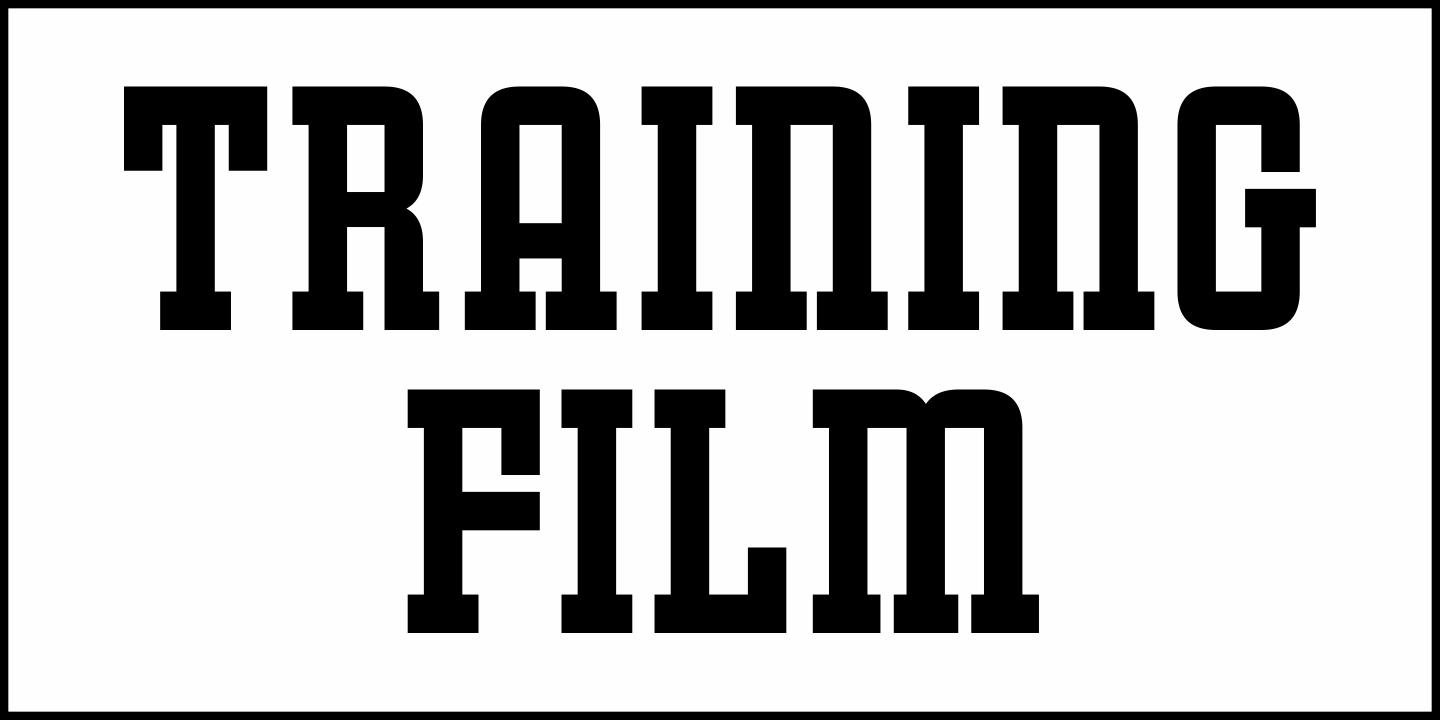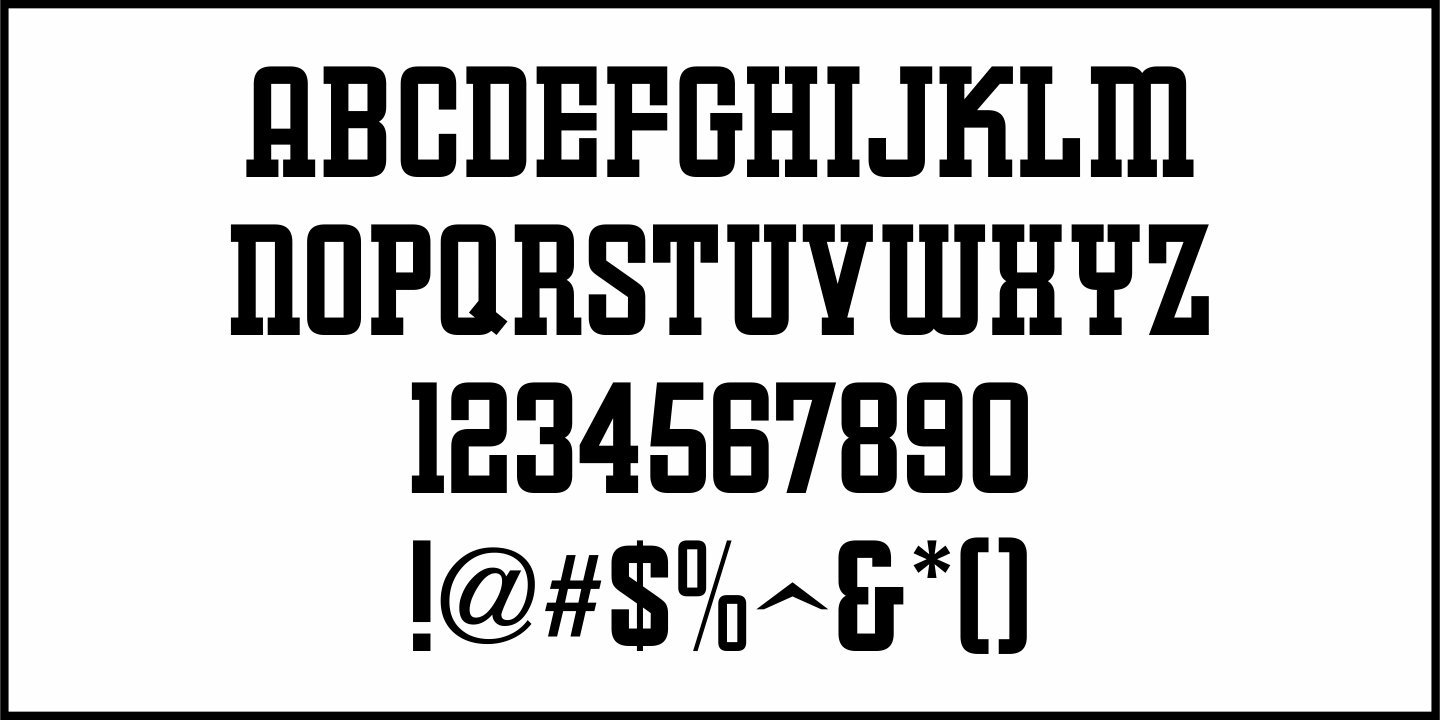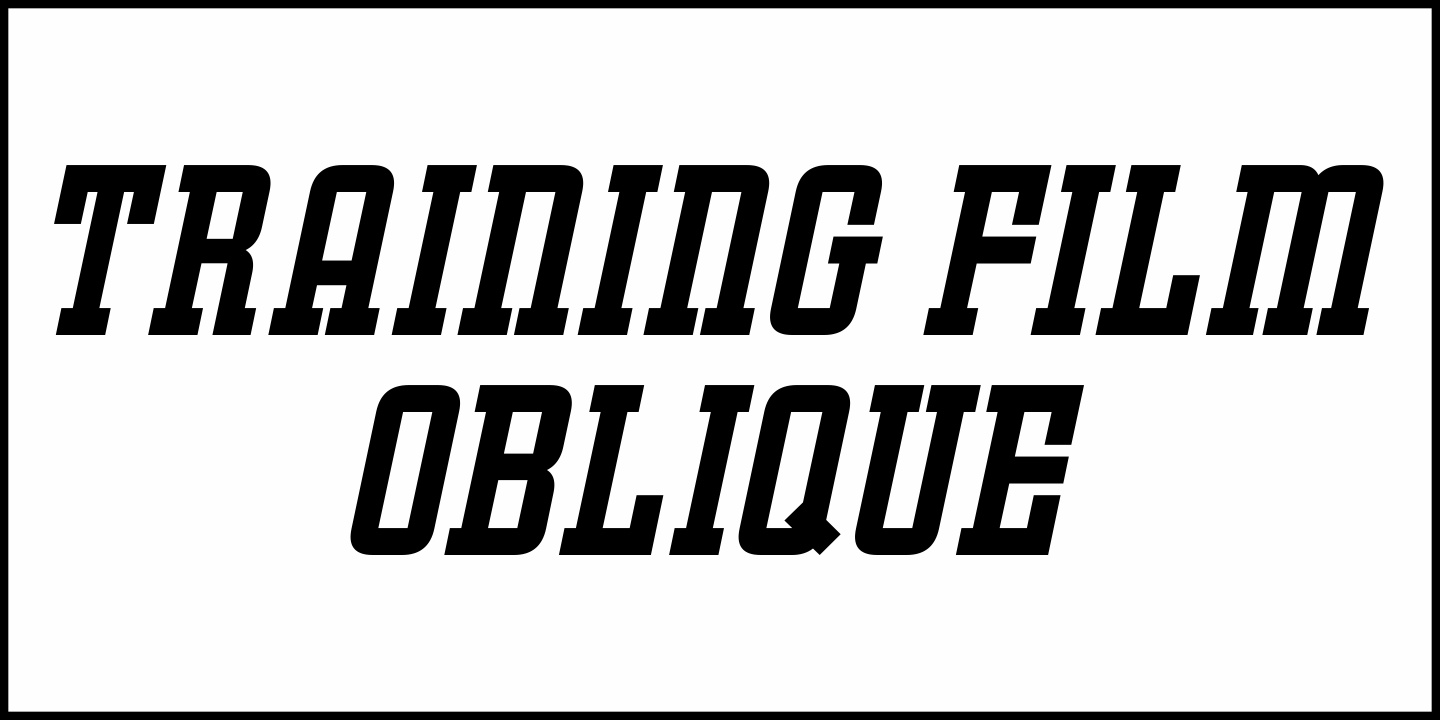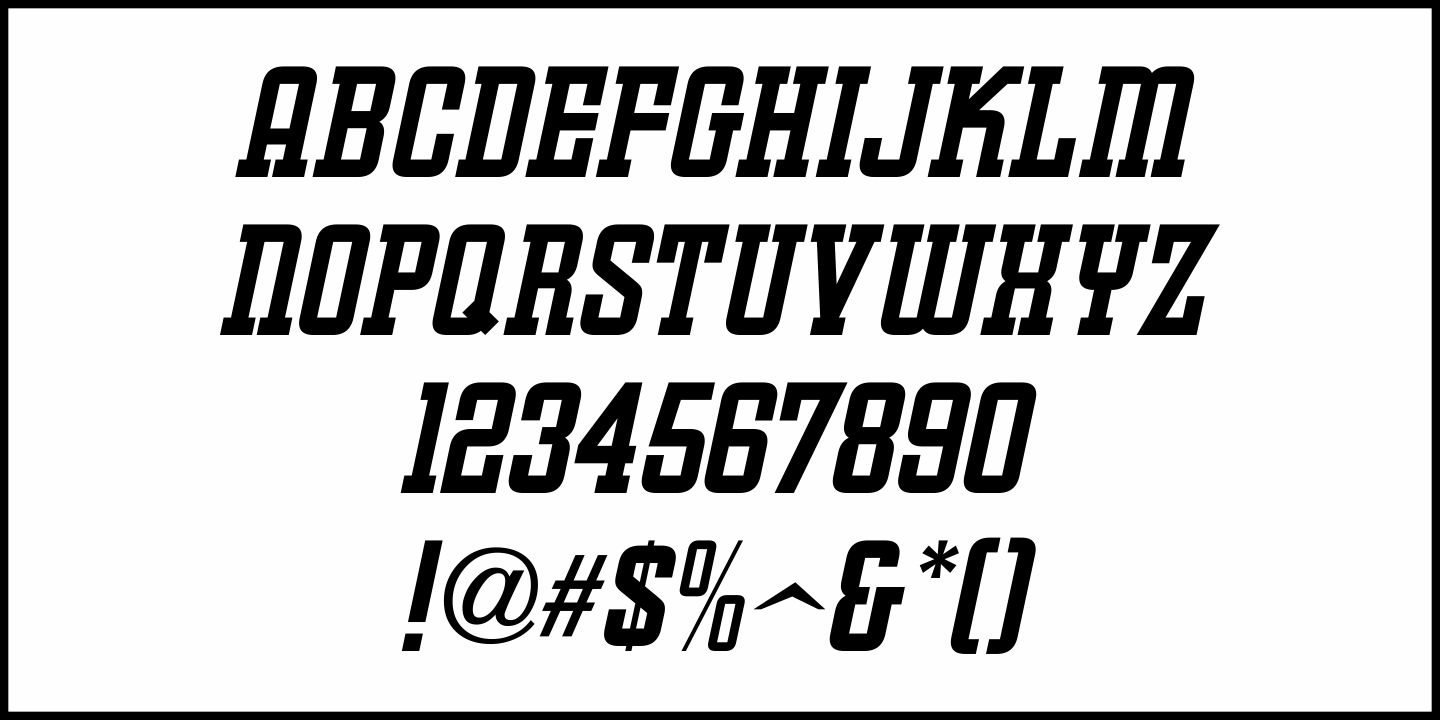
Training Film
The title card 'Airplane Hydraulic Brakes' in the beginning of a WWII armed services training film had the words "hydraulic brakes" hand lettered in an Art Deco slab serif style.
This served as the model for Training Film JNL, which is available in both regular and oblique versions.
Training Film JNL Regular by Jeff Levine Fonts